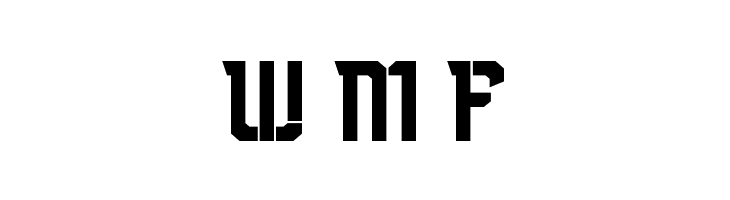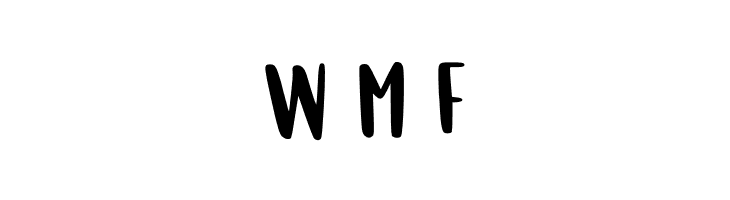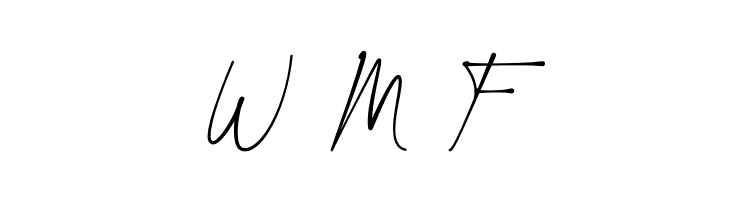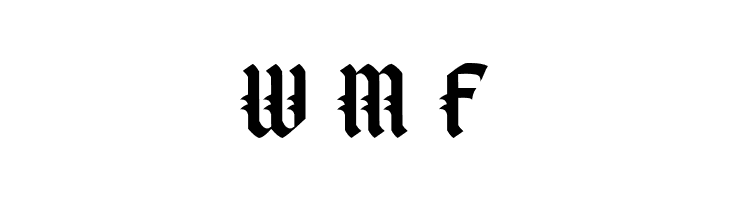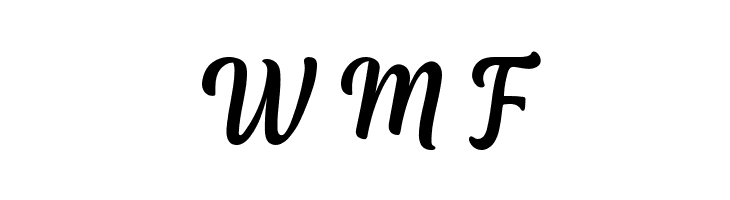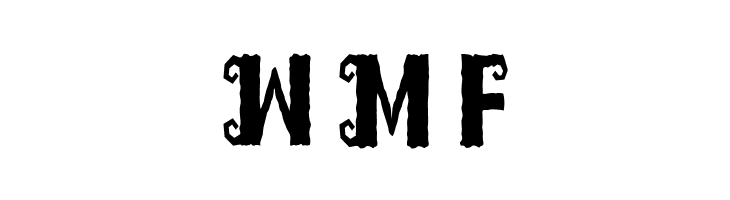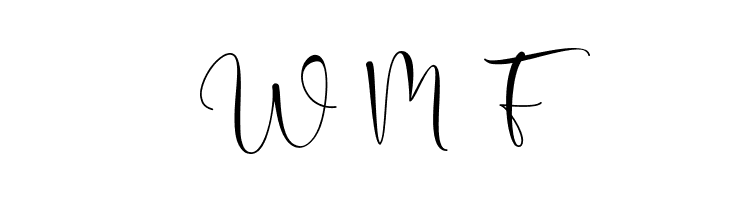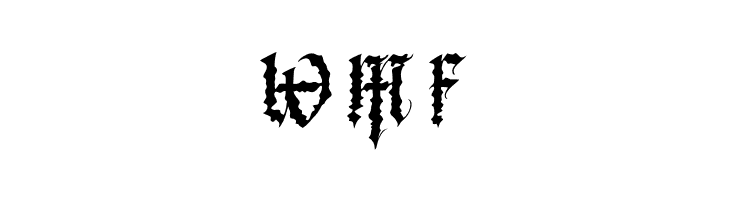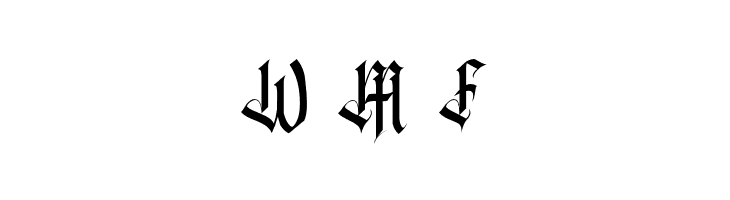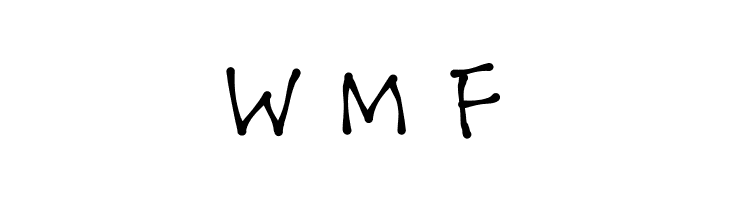
• Blacklight Signature
A sophisticated script font with elegant, flowing cursive strokes.
• BlacklightD
• BlackLightning
A playful, handwritten font with lively and whimsical characters.
• BlacKlinoleumBats
An artistic, image-based decorative font with linocut illustration style.
• Blacklist
A bold, distressed font with a rugged, grunge aesthetic.
• Blacklist
A bold, distressed font with a rugged, vintage appearance.
• Blacklisted
A bold, modern font with a unique cut-out style for impactful designs.
• Blacklisted
A bold, modern font with a distinctive cut-out style and high contrast.
• Blacklite Script DEMO-Regular
A lively and dynamic script font with flowing, cursive letterforms.
• BlackLiving
A display font made from animal and human silhouettes.
• blacklovepink - personal use
A decorative, cursive font with elegant loops and dynamic contrast.
• blackmagic
A bold, gothic-inspired font with sharp, angular edges and dramatic serifs.
• BlackMambaDg
A whimsical, handwritten font with playful and quirky character designs.
• BlackMary
A bold, geometric font with a modern, futuristic style and decorative elements.
• Blackmatte
A bold, flowing script font with elegant curves and smooth strokes.
• blackmetal
A bold, angular font with a modern blackletter-inspired design.
• BlackMetal